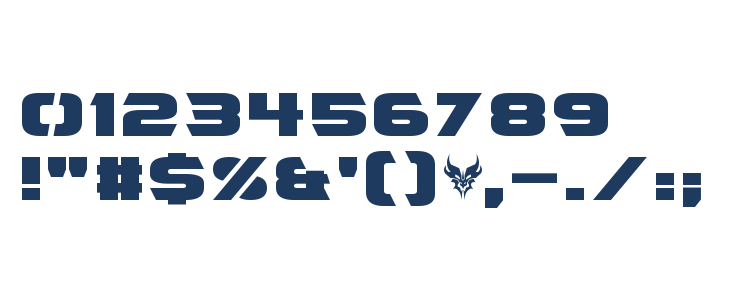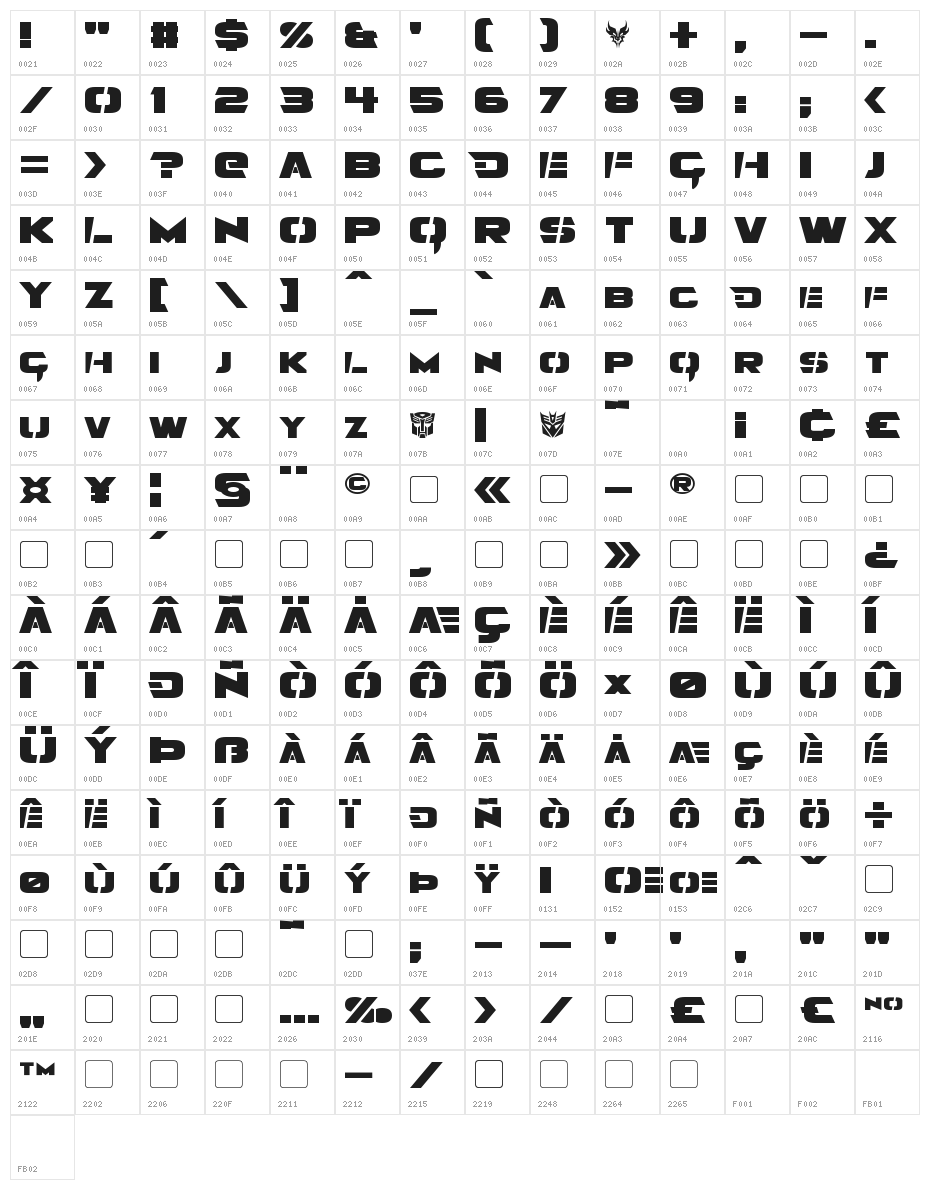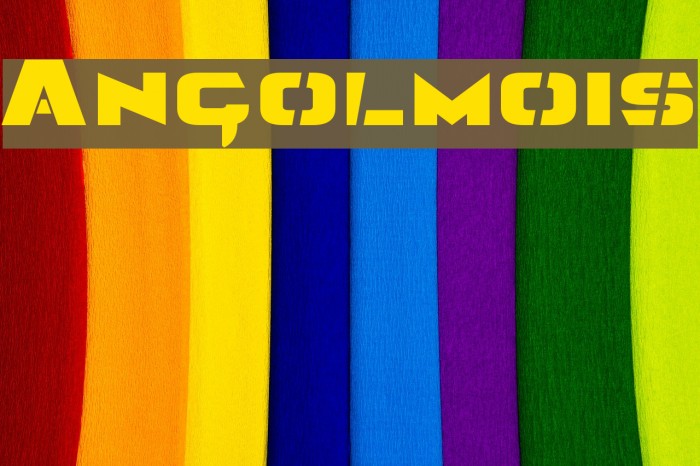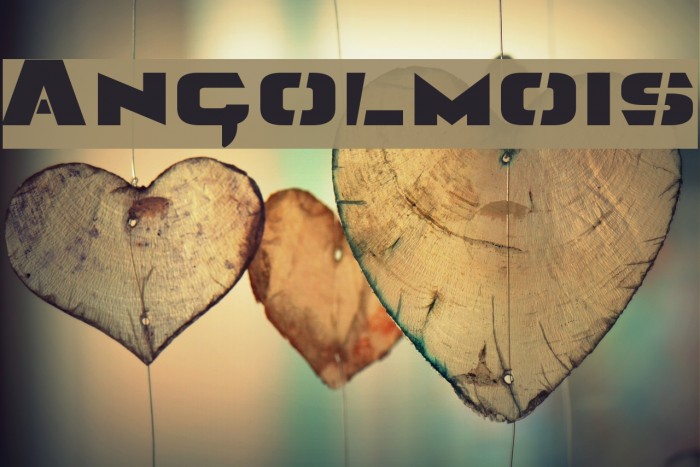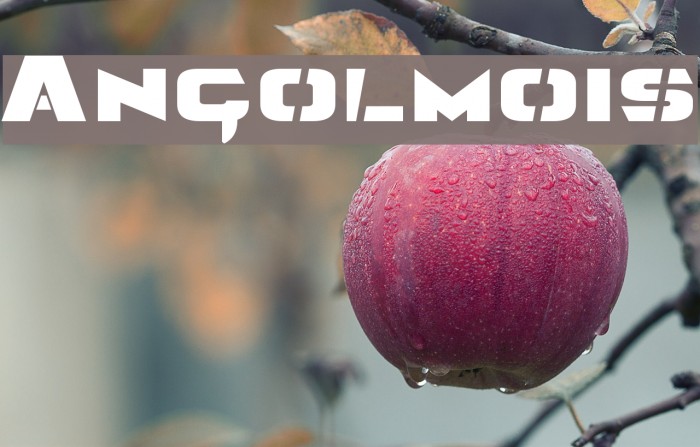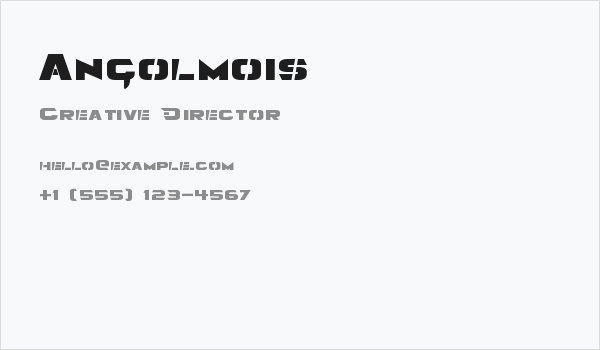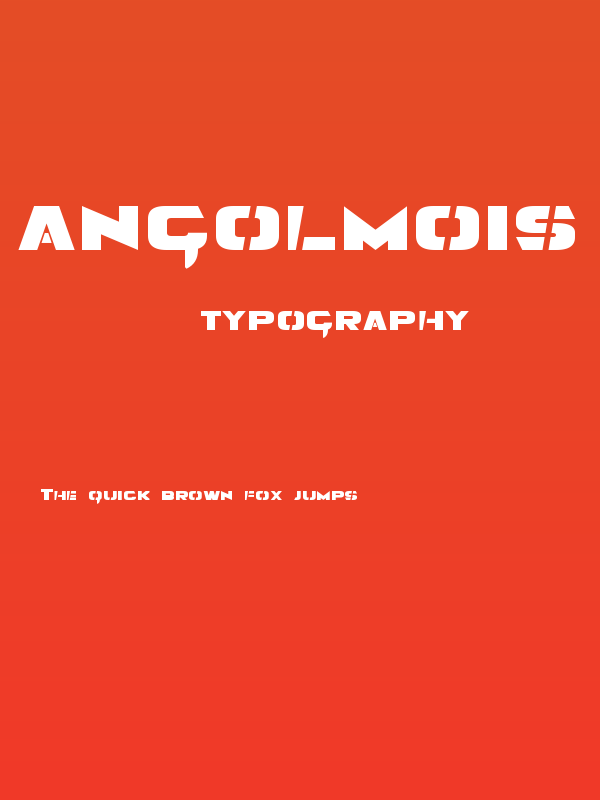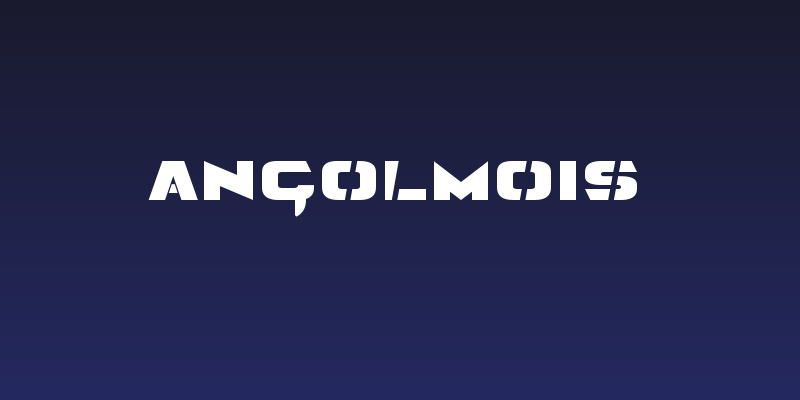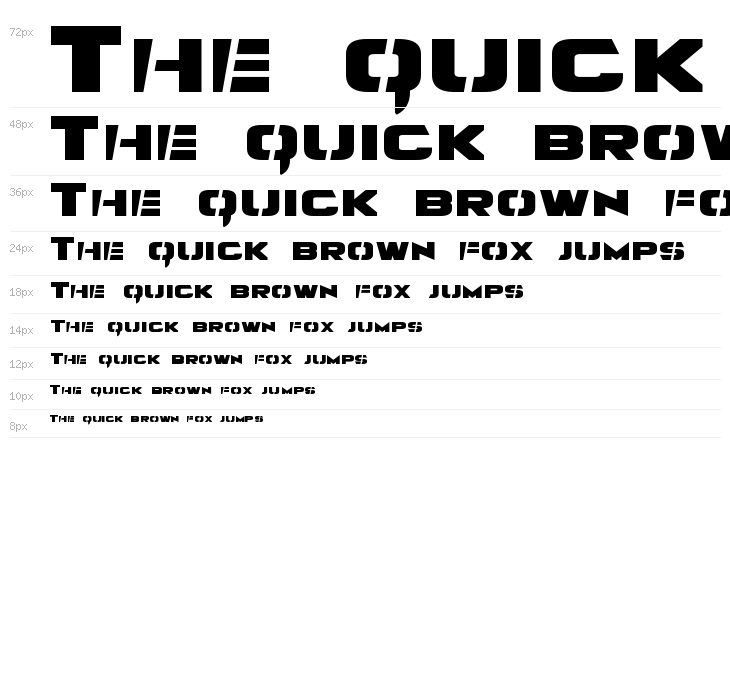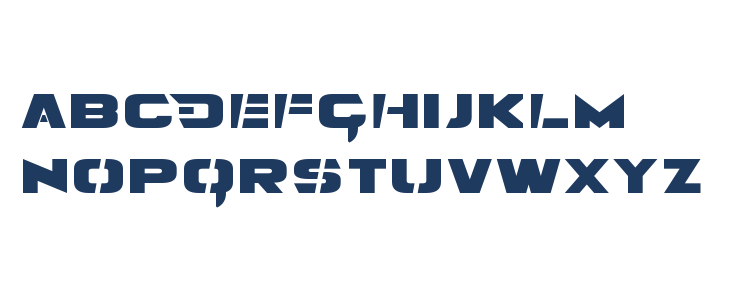
Angolmois Font
Angolmois Description
This font features a bold and futuristic design with a strong geometric influence. The characters are constructed with sharp angles and unique cutouts, giving it a distinct, edgy appearance. The uppercase letters are particularly striking, with some characters incorporating diagonal slashes that add to the dynamic feel. The numerals and special characters maintain this bold style, ensuring consistency across all glyphs. This font is ideal for projects that require a modern and impactful look, such as technology branding, video game titles, or sci-fi themed designs.
ANGOLMOIS UPPERCASE
ANGOLMOIS LOWERCASE
ANGOLMOIS OTHER CHARS